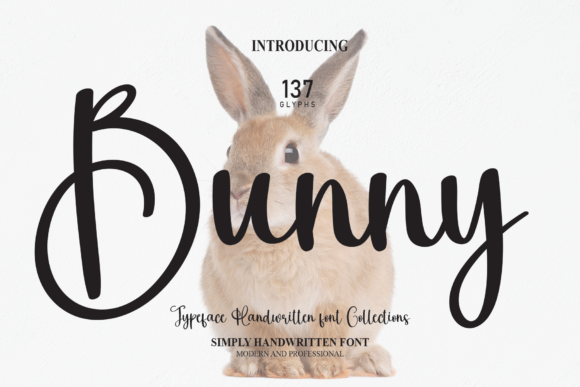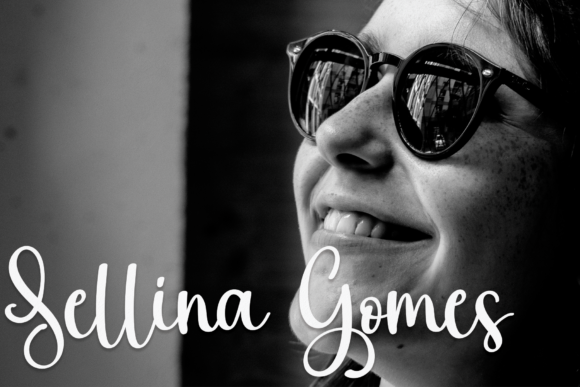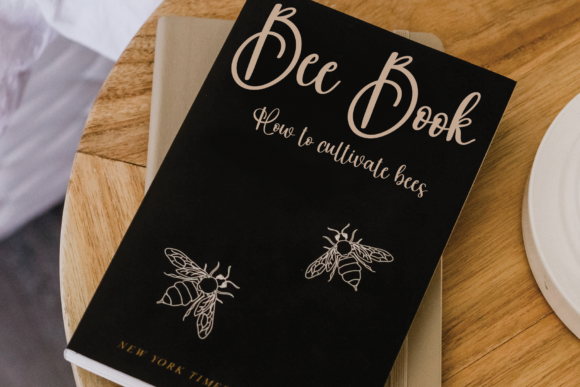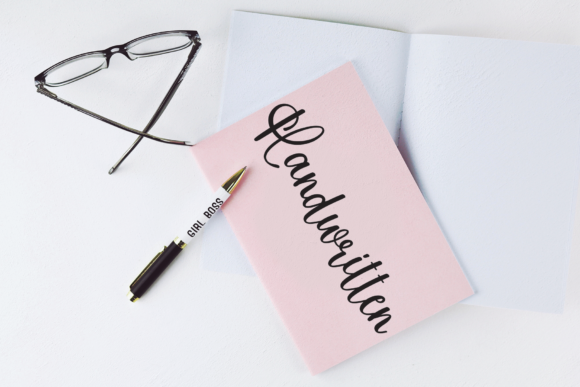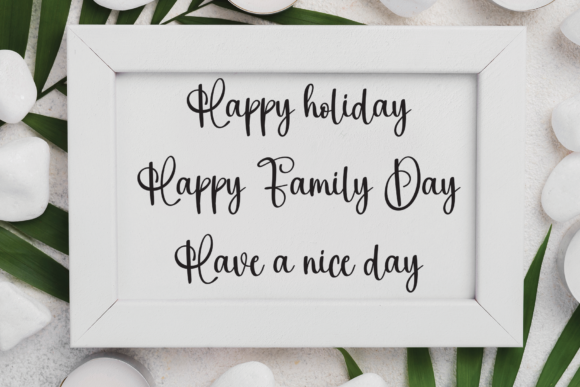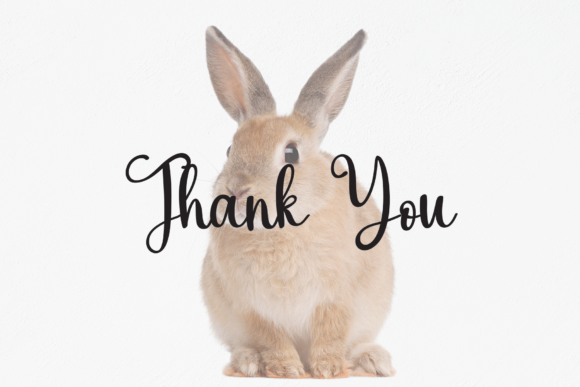
Bunny Font
Bunny is a fashionable and delicate script font. It is suitable for any projects such as: logos, branding projects, label, photography, watermark, special events, and all your other lovely projects that need a beautiful script taste.